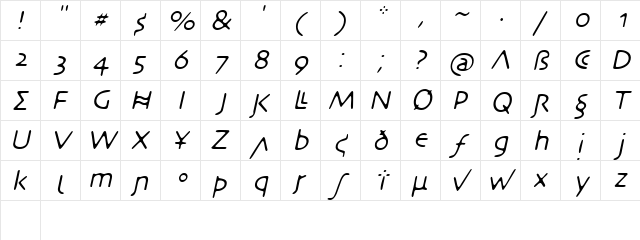
DesertCrypt Oblique
Design Context for DesertCrypt Typeface
DesertCrypt offers clean, dependable letterforms without strong stylistic allegiance, making it a practical choice for designers who need flexibility. The dynamic lean of this cut emphasises speed and emphasis in any layout.
Pro Tip: Use DesertCrypt for emphasis, pull quotes, and subheadings where its slanted energy can add rhythm to the layout.